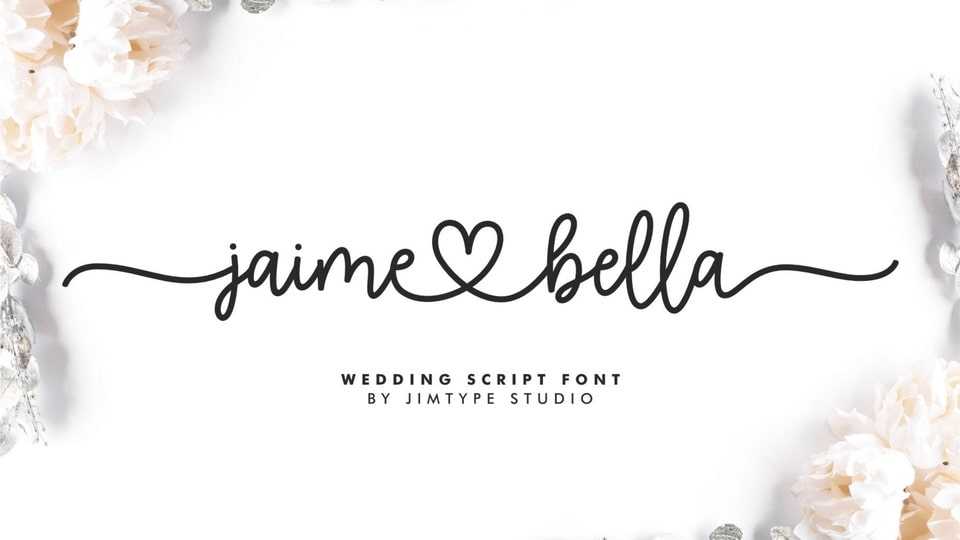
Download Jaime Bella font, a beautiful handwritten typeface inspired by the French word for “I love,” we anticipate widespread appeal and believe it is ideally suited for wedding projects celebrating romantic.